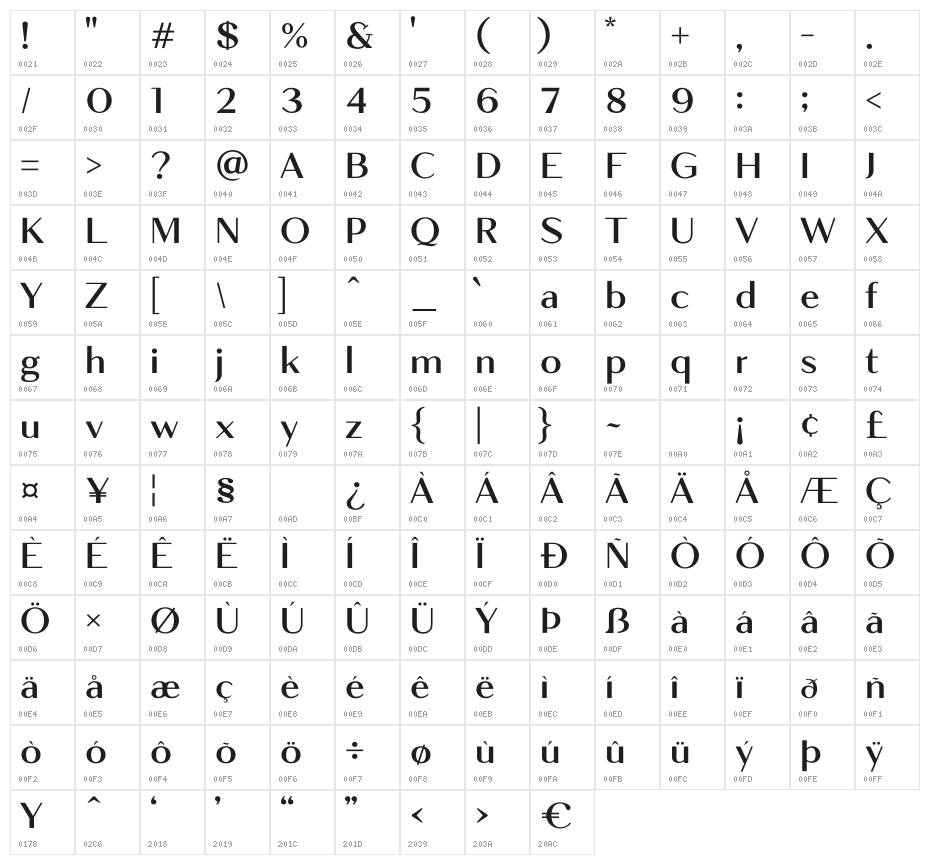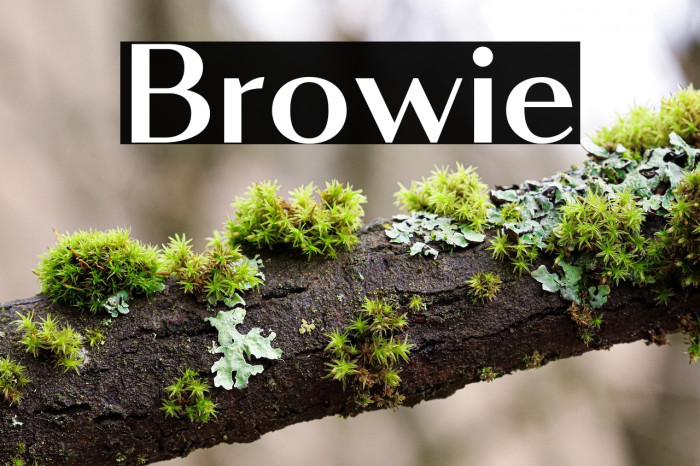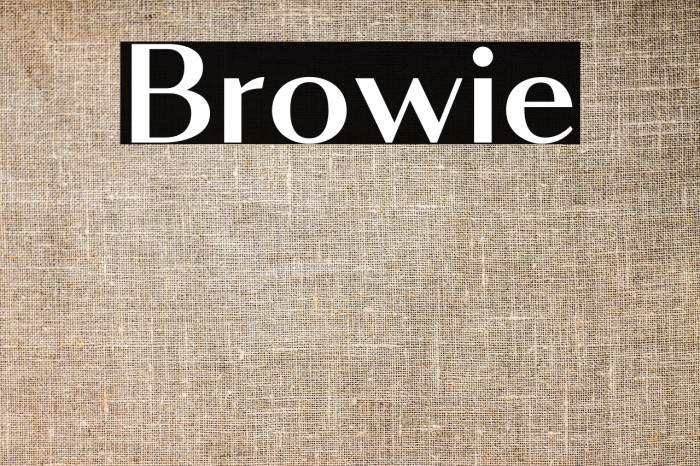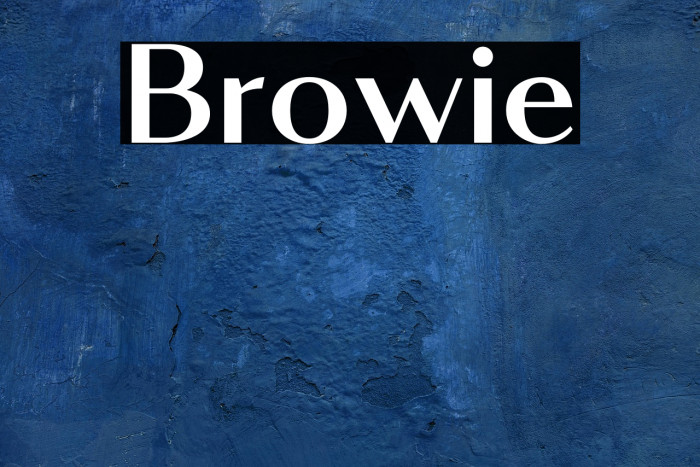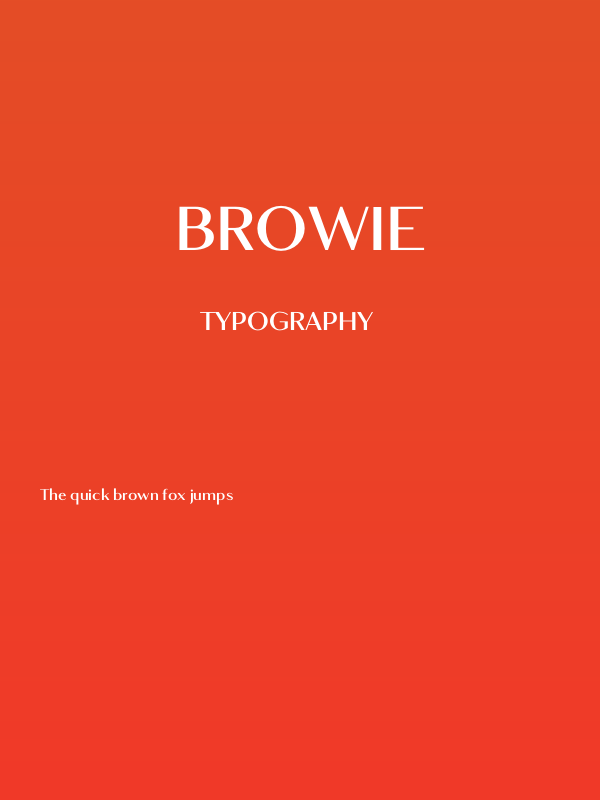
Browie Font
Browie Description
This font features a modern and elegant design with a high contrast between thick and thin strokes, giving it a sophisticated appearance. The uppercase letters are bold and commanding, while the lowercase letters maintain a graceful flow. The numerals are clear and easy to read, making them suitable for various applications. The special characters are well-designed, maintaining the overall aesthetic of the font. Its clean lines and stylish curves make it versatile for both digital and print media.
| Use Case | Headlines, Logos, Editorial design |
| Proposed Projects | Ideal for luxury branding, editorial design, high-end product packaging, and elegant invitations. |